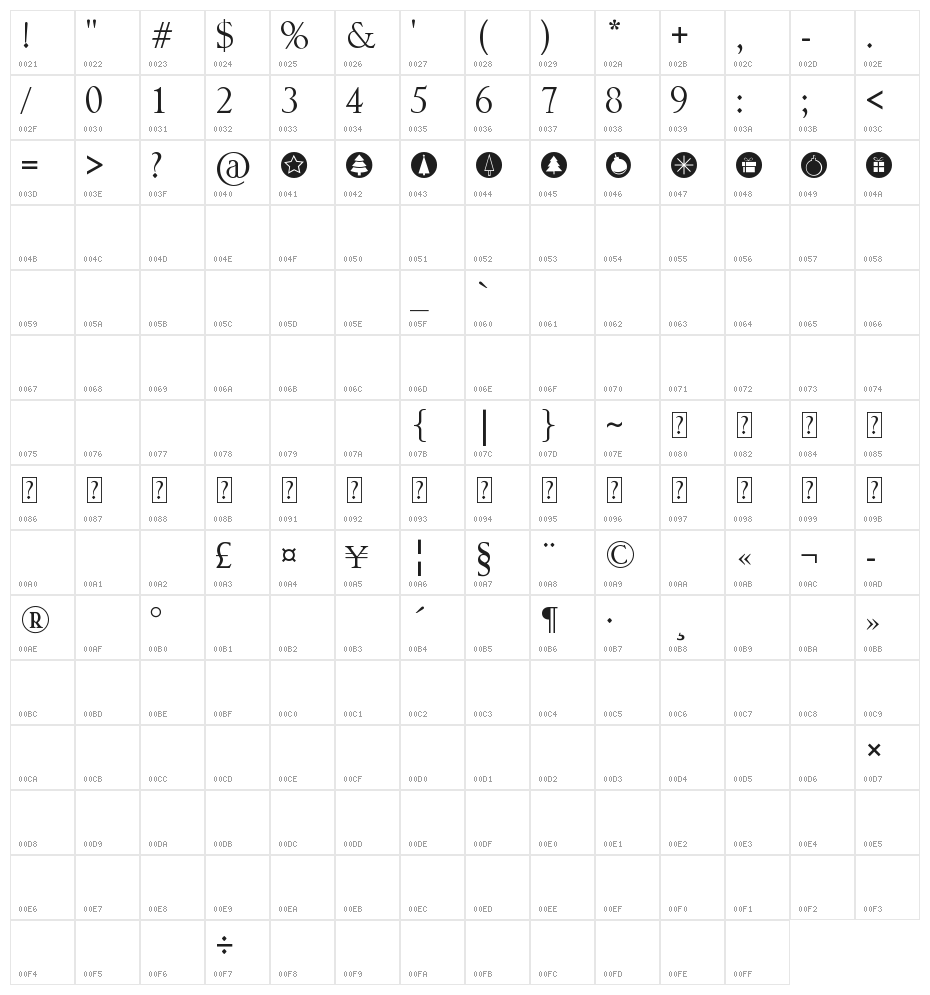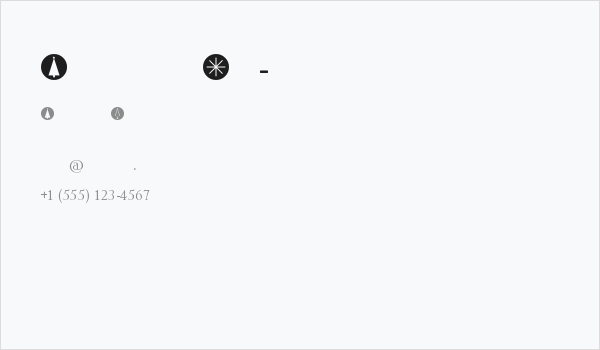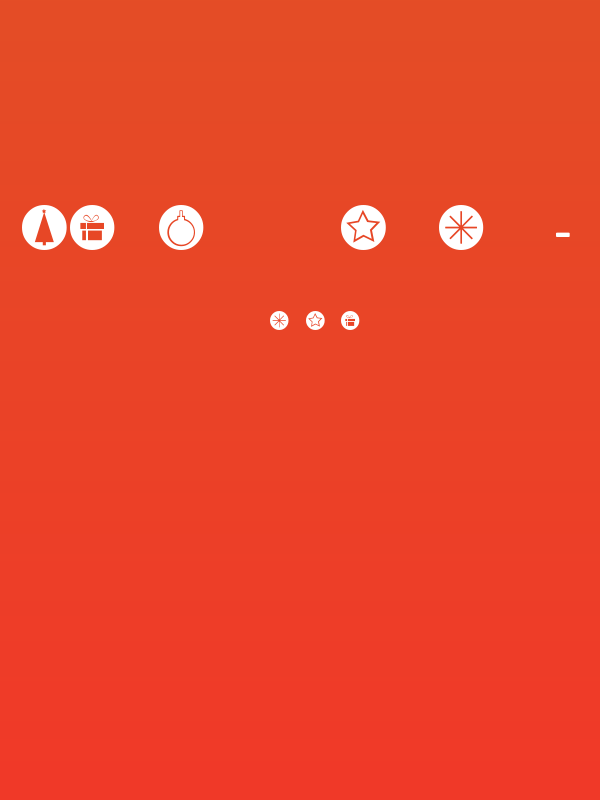
Christmas Go - Personal Use Only Font
Christmas Go - Personal Use Only Description
This font exudes a classic elegance with its refined serif style, characterized by delicate curves and a sophisticated presence. The numerals are gracefully proportioned, maintaining a harmonious balance with the accompanying punctuation marks. The special characters, such as the ampersand and dollar sign, are crafted with a touch of flair, adding to the overall aesthetic appeal. The font's design is reminiscent of traditional typesetting, making it suitable for projects that require a timeless and formal appearance. Its clean lines and well-defined serifs ensure readability while conveying a sense of tradition and authority.
| Proposed Projects | Ideal for formal invitations, classic book covers, elegant branding, and traditional editorial layouts. |